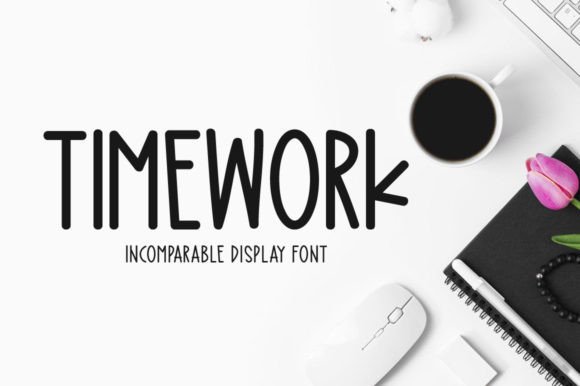
Timework: A Unique Display Font for Modern Design Needs
In the ever-evolving world of design, typography plays a pivotal role in shaping how messages are perceived. Among the many fonts that have emerged to meet the growing demand for creativity and clarity, Timework stands out as a versatile and aesthetically compelling display font. Designed with both form and function in mind, Timework is more than just a typeface—it's a visual tool that helps professionals, creators, entrepreneurs, marketers, freelancers, and enthusiasts communicate their ideas with impact and style.
What Makes Timework a Unique Display Font?
Timework is a modern display font that blends elegance with boldness. Unlike generic sans-serif or serif fonts used in body text, display fonts like Timework are specifically crafted for headlines, logos, and other large-scale typographic elements where visual appeal takes precedence. The unique character shapes, balanced proportions, and subtle detailing of Timework make it particularly suitable for designs that require attention-grabbing aesthetics without sacrificing readability.
The font’s clean yet distinctive strokes allow it to cut through the noise in a visually saturated digital landscape. It has been carefully designed to maintain legibility at various sizes while still delivering a strong personality. This makes it an excellent choice for designers looking to add a touch of sophistication to their projects.
Fitting Into Industry and Creative Trends
As industries continue to embrace minimalism and maximalism in equal measure, the need for adaptable and expressive typography has never been higher. In marketing, branding, and web design, fonts serve as silent brand ambassadors—conveying tone, emotion, and identity before any words are even read. Timework aligns perfectly with this trend by offering a font that can adapt to both high-contrast and soft-toned visuals, depending on the designer’s intent.
Businesses today are increasingly aware of the importance of visual storytelling. Whether launching a new product, creating social media content, or designing promotional materials, the right font can significantly influence audience engagement. Timework fits into this narrative by providing a fresh typographic option that supports the creative needs of professionals across diverse fields such as graphic design, advertising, and digital publishing.
Why Designers Are Paying Attention to Timework
Designers are always on the lookout for fonts that offer something new—something that breaks away from the conventional while still maintaining usability. Timework meets this criterion by combining contemporary flair with a timeless structure. Its unique characteristics include:
- Aesthetic versatility: Works well in both digital and print formats.
- Strong visual hierarchy: Helps highlight key information effectively.
- Emotional resonance: Conveys professionalism, warmth, and innovation depending on styling.
These qualities make it ideal for a range of applications, including but not limited to thank you cards, quotes, greeting cards, logos, and business cards. As consumers become more discerning about the visual language brands use, having access to a font like Timework allows designers to stay ahead of the curve.
Changing Preferences and Workflows in Design
Modern workflows emphasize speed, efficiency, and responsiveness. With tools like Canva, Adobe Express, and Figma becoming integral parts of the design process, there's a growing need for fonts that are not only beautiful but also functional within these platforms. Timework integrates smoothly into such environments, allowing users to apply it with ease and confidence.
Moreover, the rise of remote work and digital communication has increased the demand for fonts that perform well across devices and screen resolutions. Whether viewed on a mobile phone, tablet, or desktop monitor, Timework maintains its integrity and charm, making it a reliable choice for digital-first projects.
Consumers today also expect more personalized and human-centric experiences. This shift has led to an increase in handwritten-style and stylized fonts in design. While Timework isn't a handwriting font per se, it offers a similar sense of individuality and warmth through its thoughtful construction and expressive curves.
Practical Applications of Timework
Let’s take a closer look at some real-world examples where Timework shines:
- Thank You Cards: The elegant and slightly rounded characters of Timework bring a sense of sincerity and class to thank you cards, whether they're digital or printed. It conveys gratitude in a way that feels personal and meaningful.
- Quotes and Social Media Content: When sharing motivational quotes or promotional copy on Instagram, Twitter, or Facebook, using Timework ensures your message stands out. Its bold presence commands attention, encouraging shares and engagement.
- Greeting Cards and Invitations: For birthdays, weddings, or holidays, Timework adds a refined and memorable touch. Its balance between creativity and clarity makes it perfect for conveying joy and celebration.